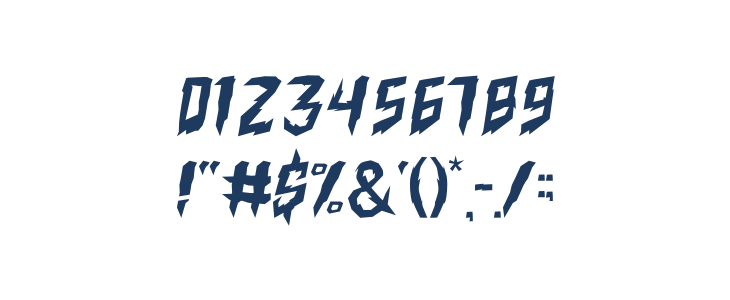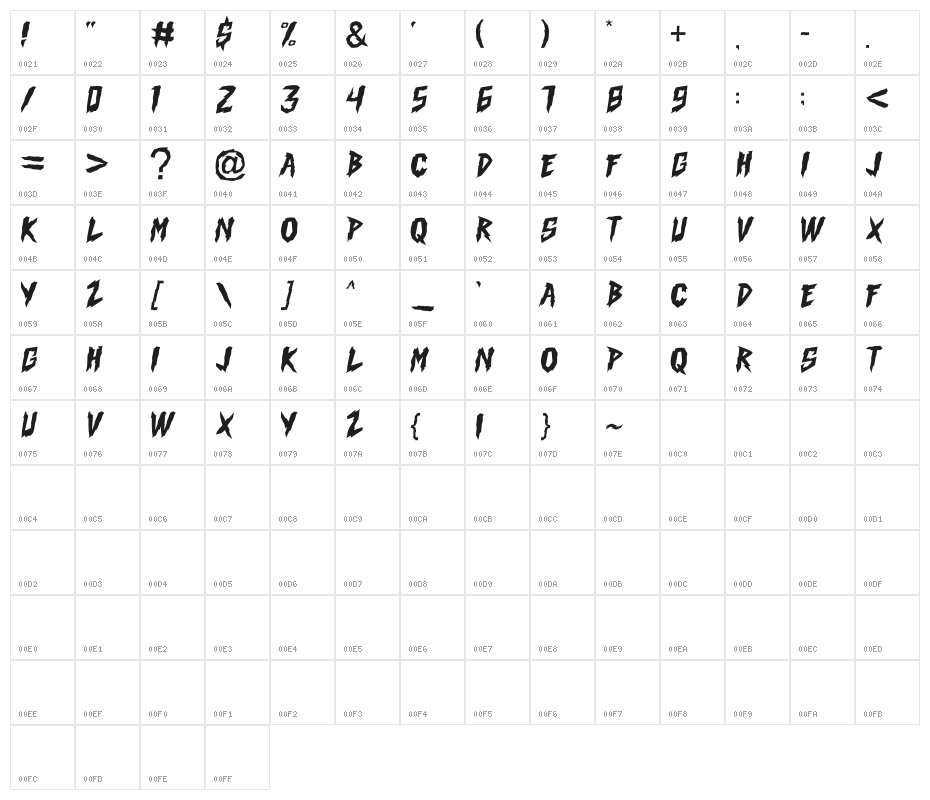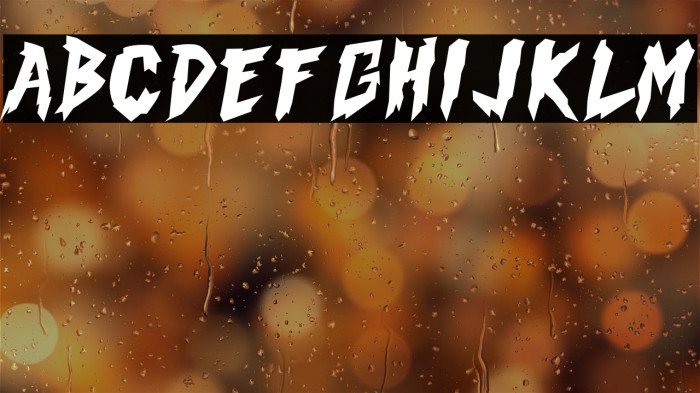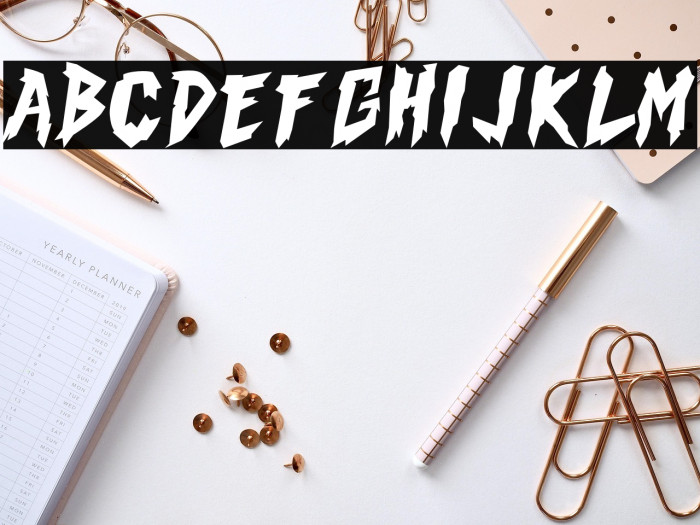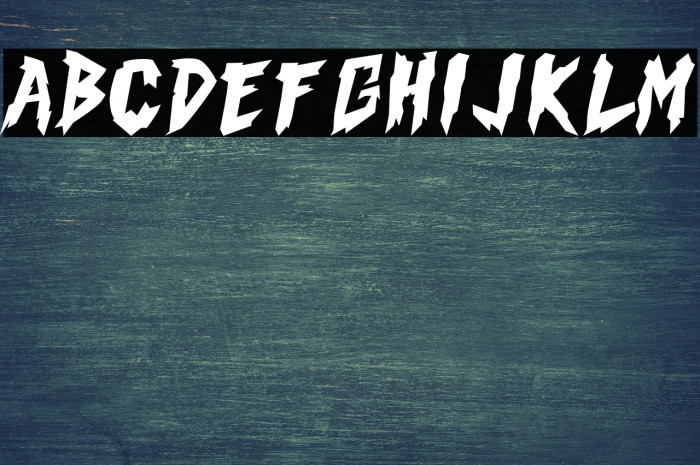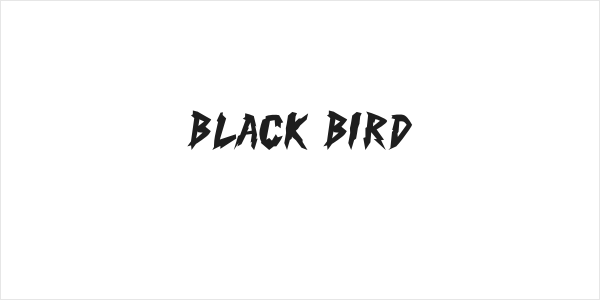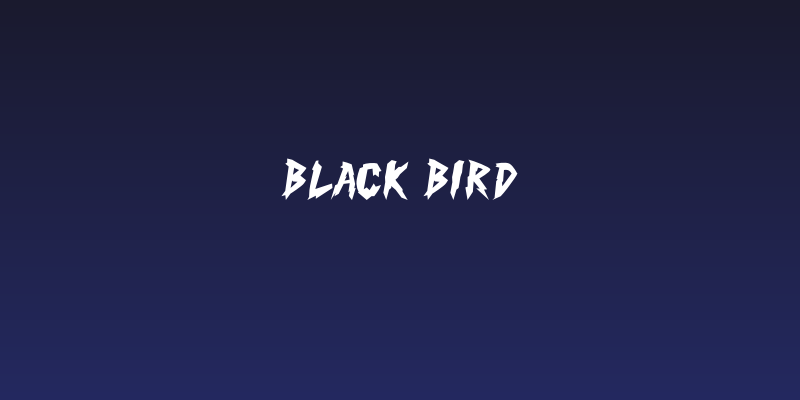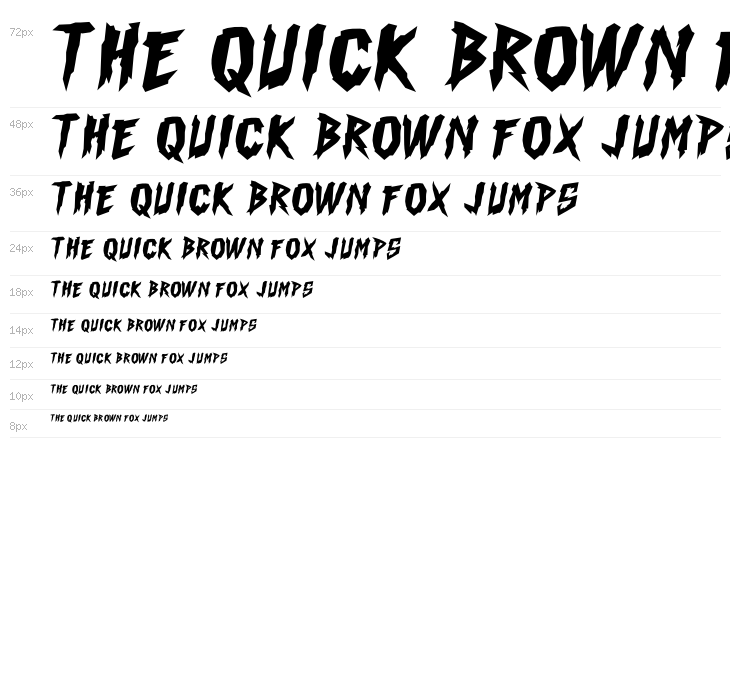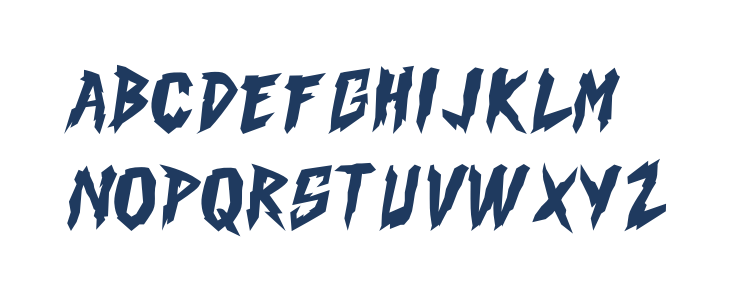
Black Bird Font
Black Bird Description
This font features a bold and aggressive design, characterized by sharp, jagged edges and a dynamic, angular style. The letters appear to be carved or slashed, giving a sense of movement and intensity. The uppercase and lowercase letters maintain a consistent style, with each character exhibiting unique cuts and angles that contribute to the overall edgy aesthetic. The numbers and special characters follow the same design principles, ensuring a cohesive look throughout. This font is ideal for projects that require a strong, impactful visual presence.
| Overall Style | Modern, Aggressive |
| Proposed Projects | Perfect for music album covers, sports team branding, video game titles, or any project needing a bold, edgy aesthetic. |